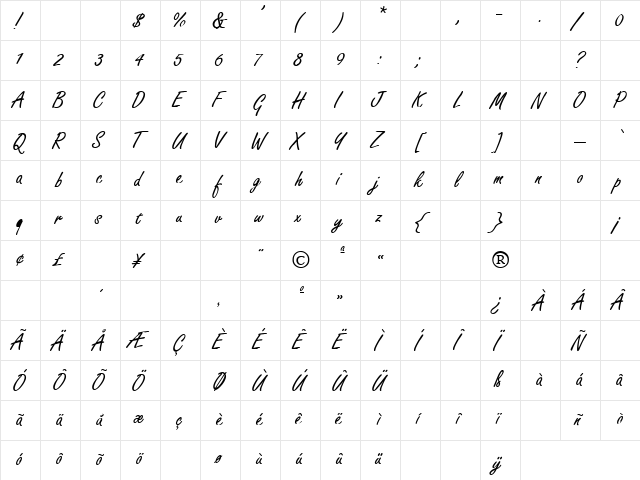
Twilight 1 Regular Font Preview
Twilight 1 Regular
Twilight 1 Regular Font Details
Design Context for Twilight 1 Typeface
Twilight 1 takes a measured approach to typography — its balanced proportions and neutral character make it a reliable workhorse for both digital and print work. The delicate stroke weight brings airiness and refinement to layouts.